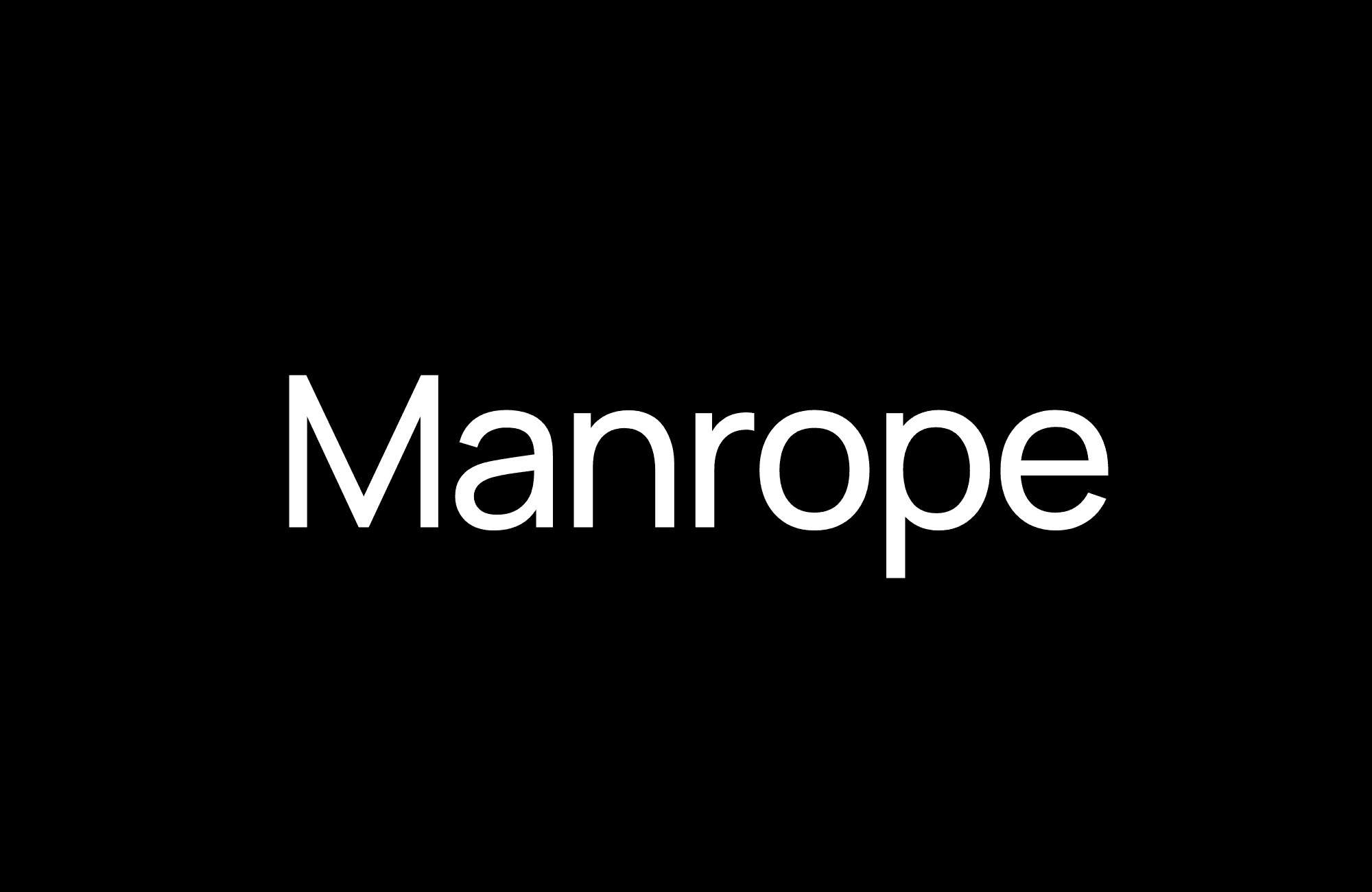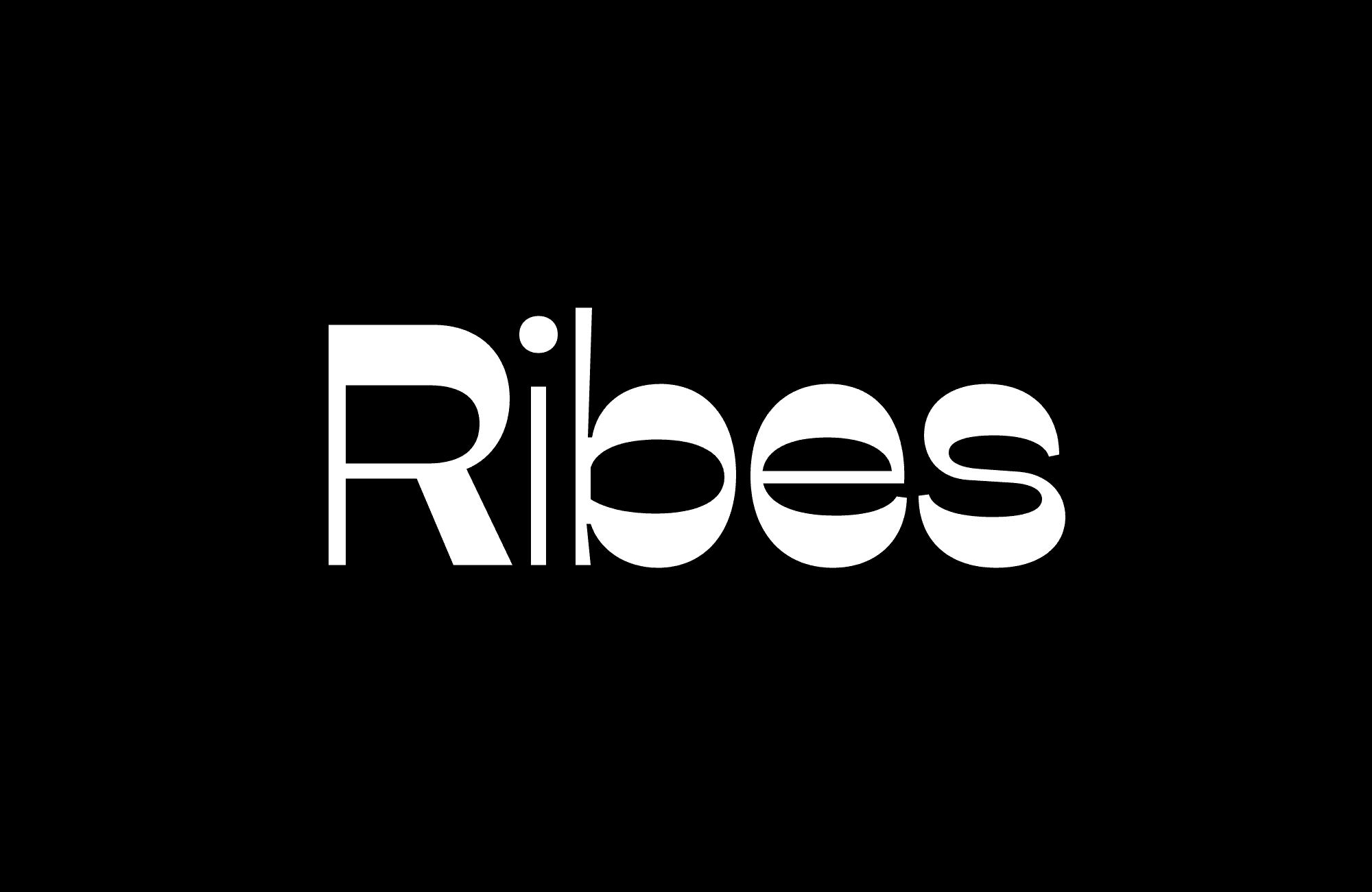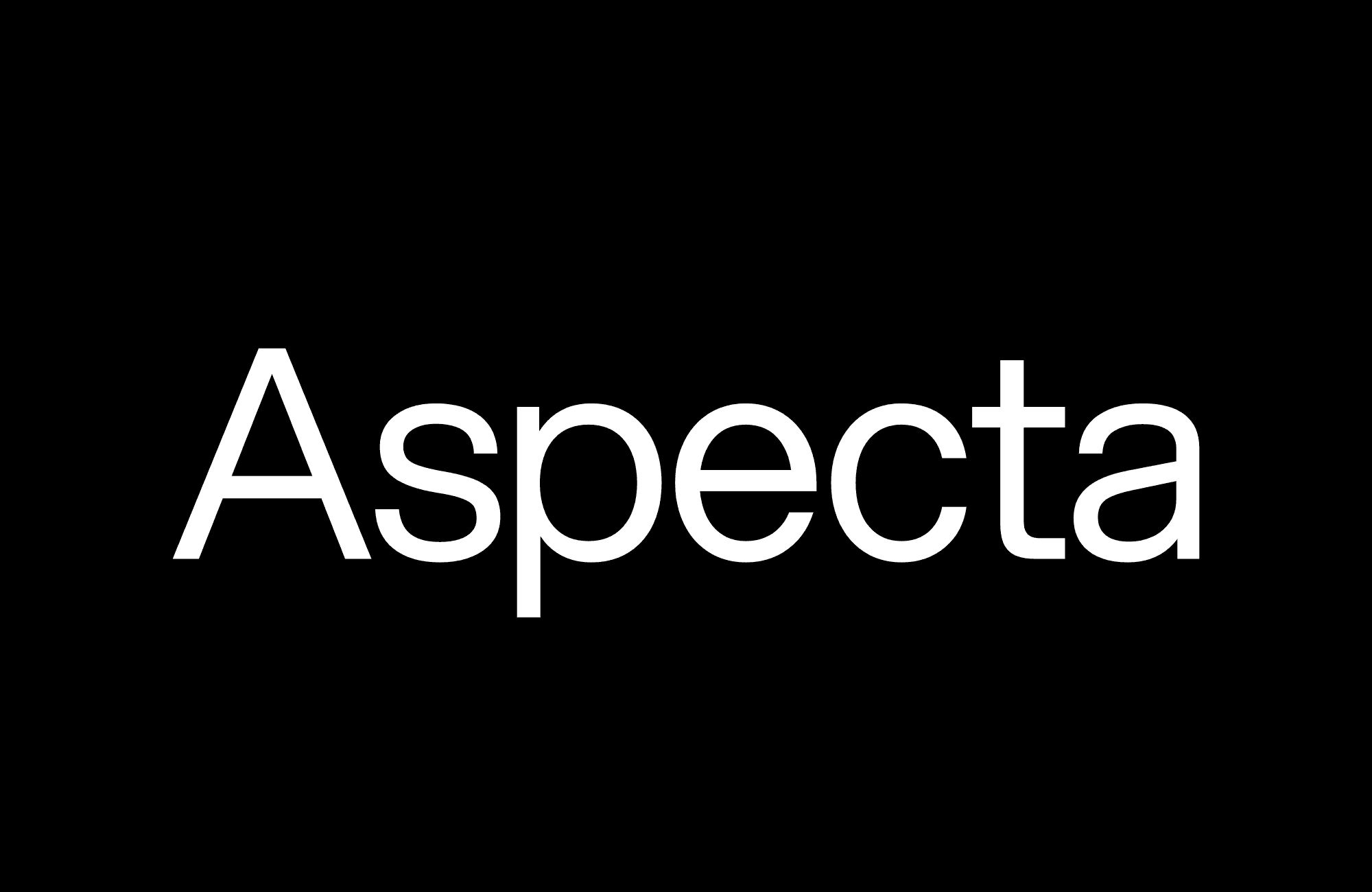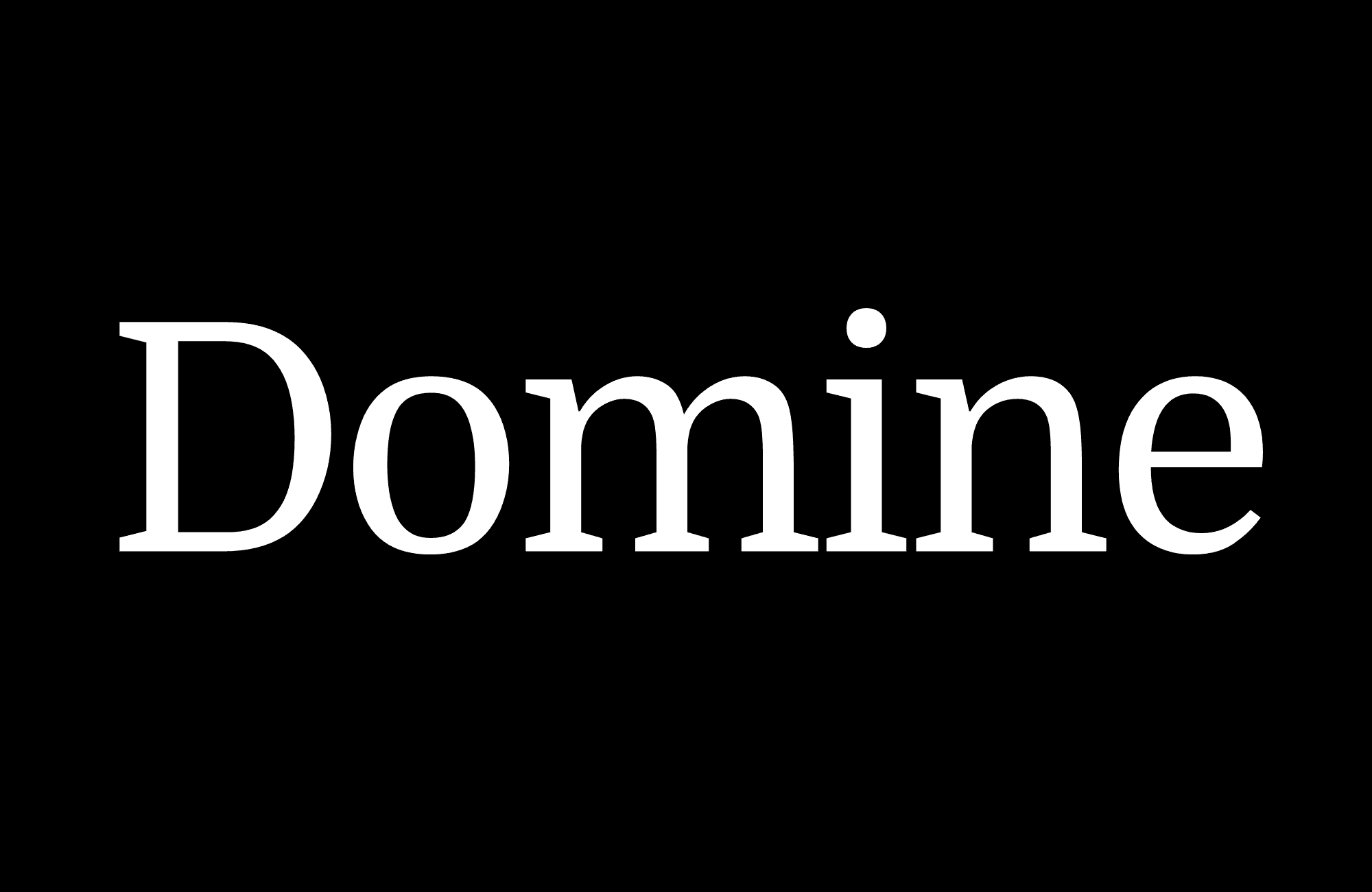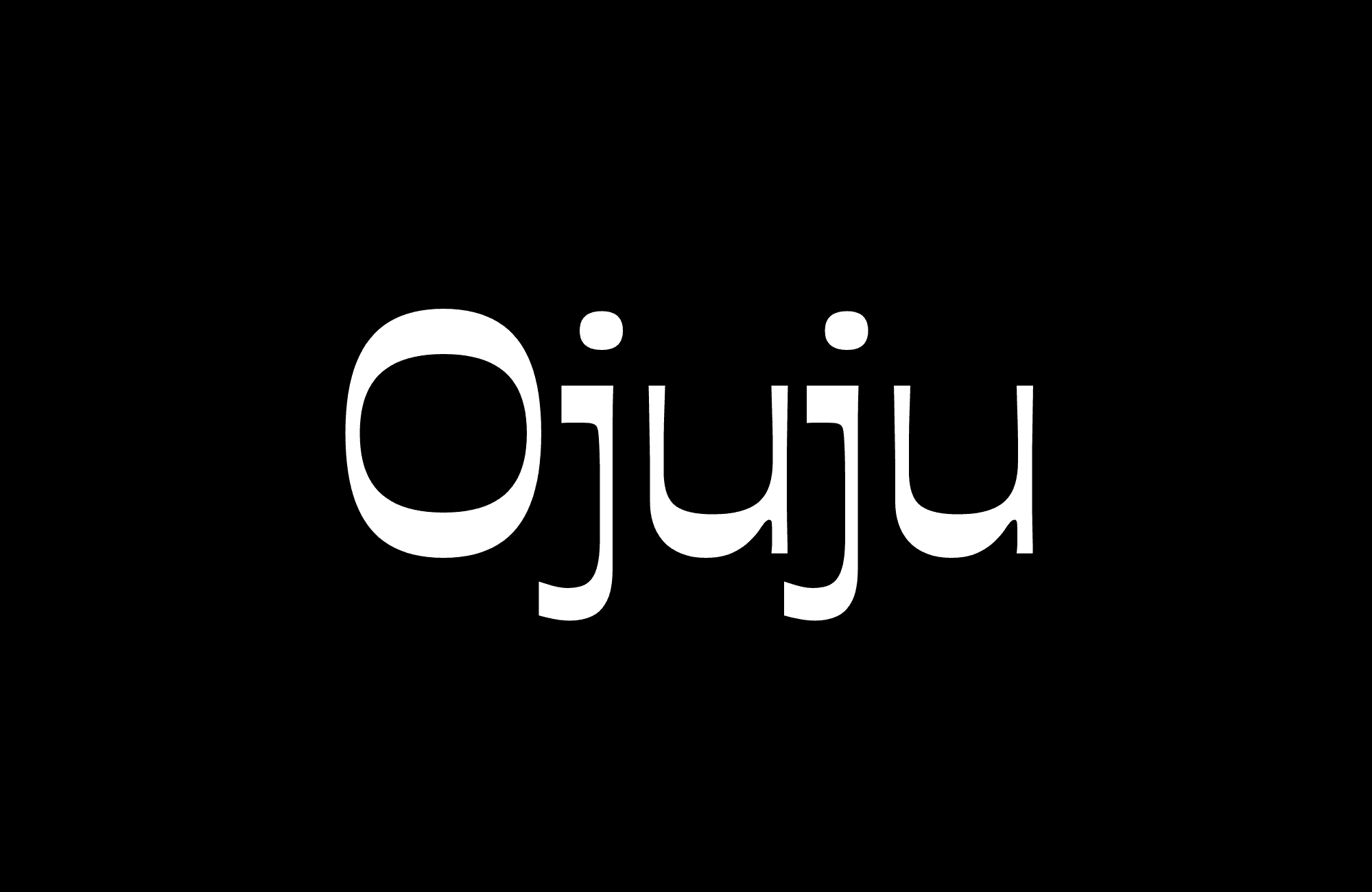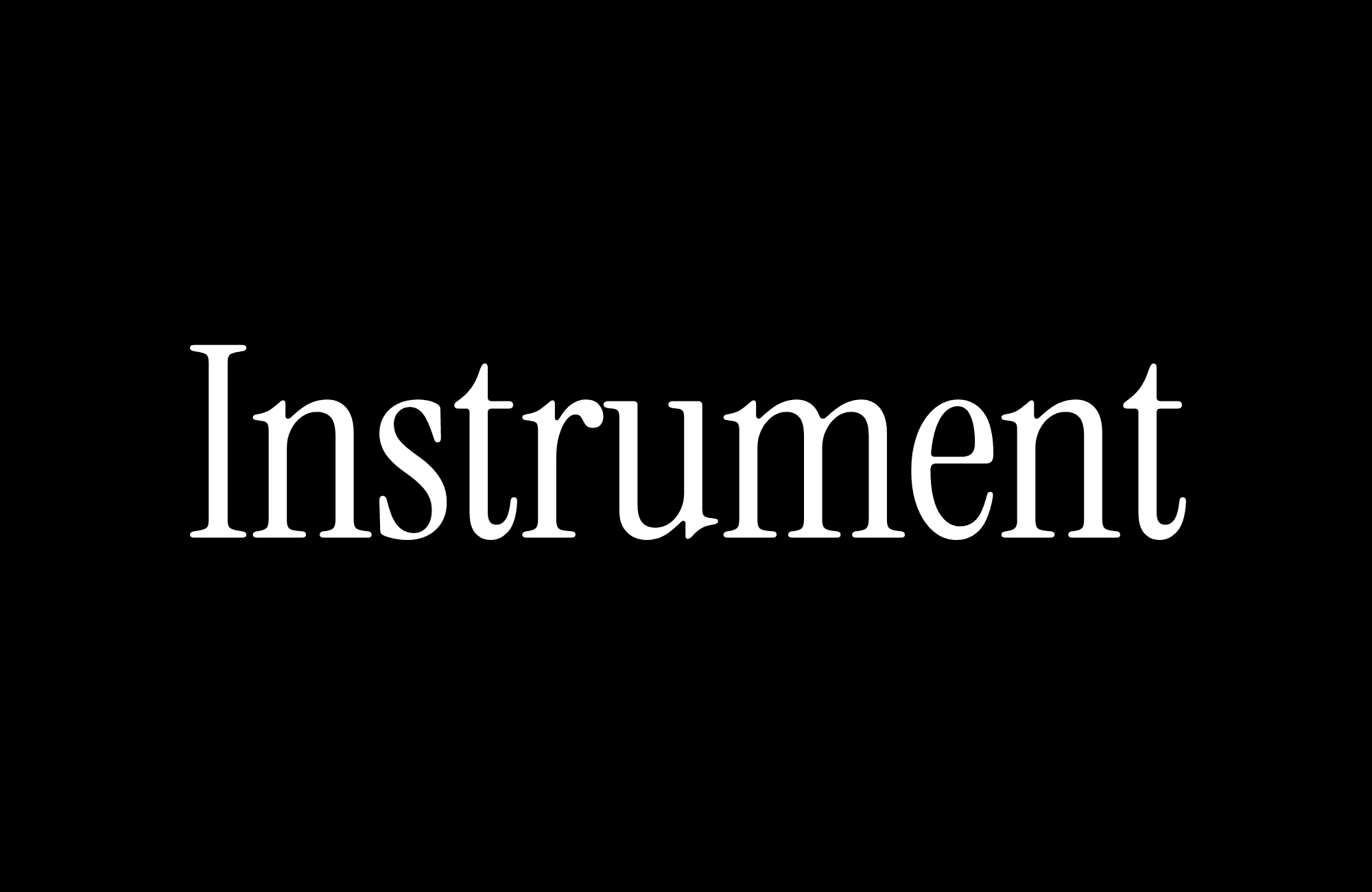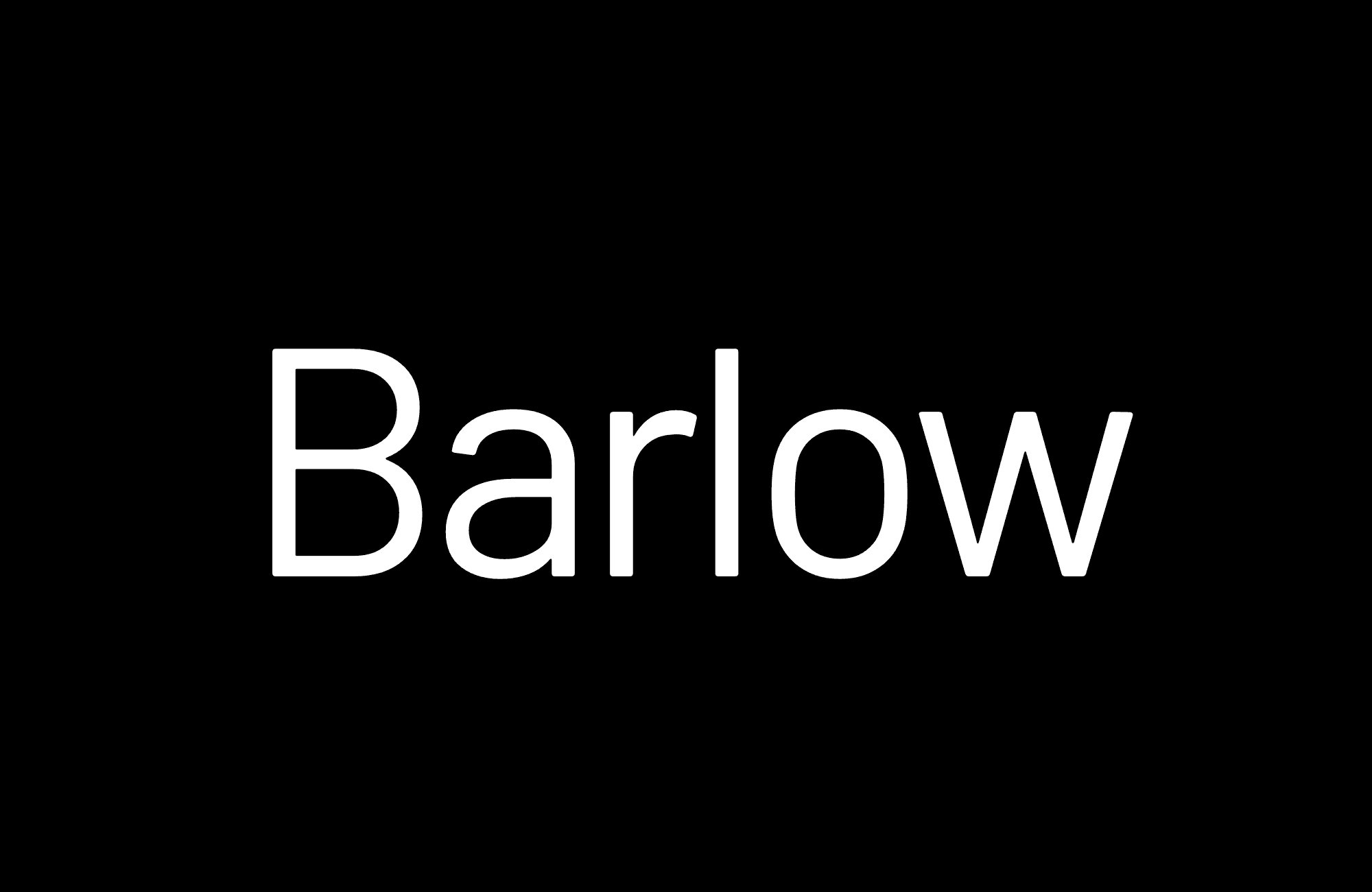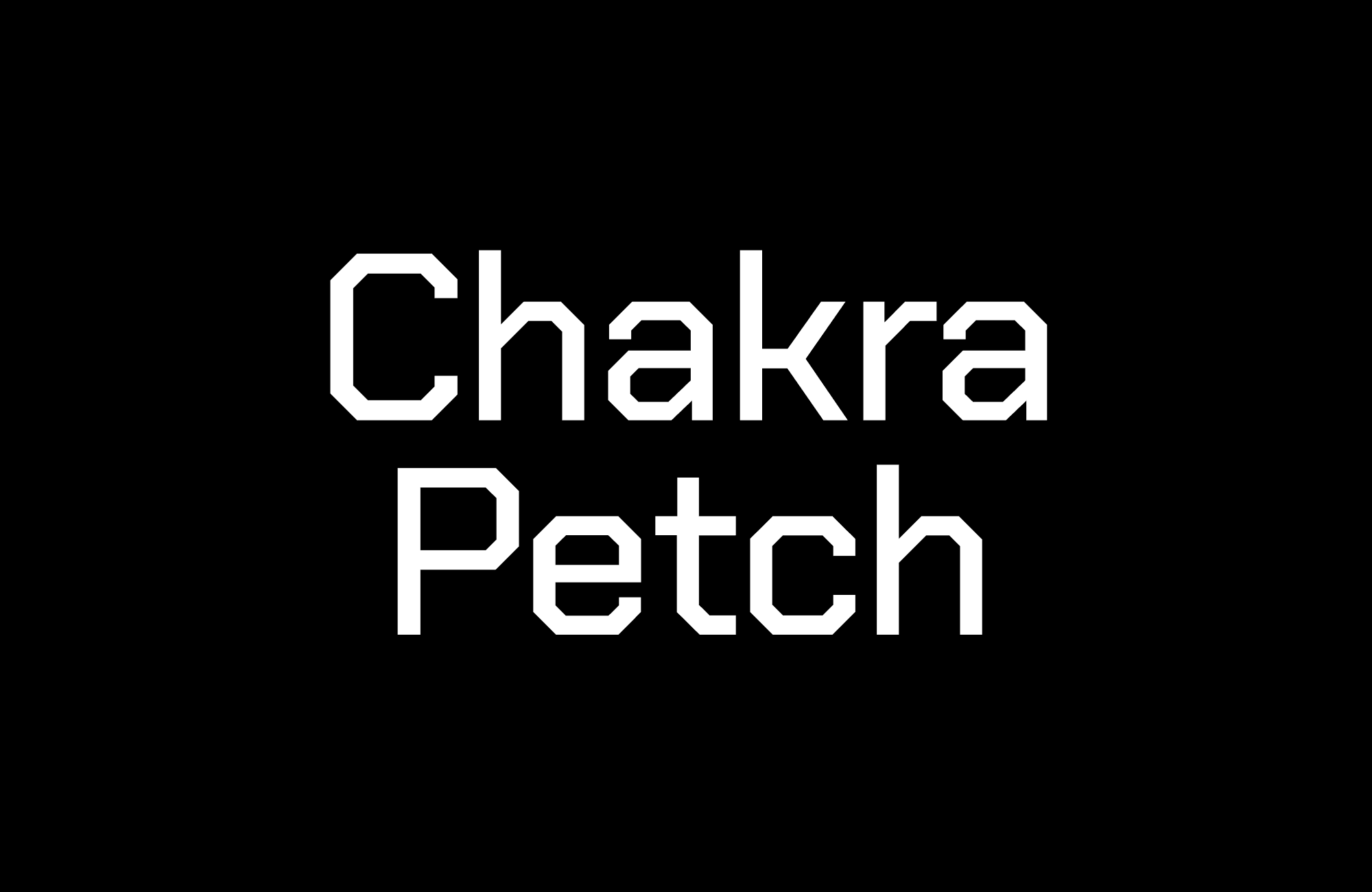
The best fonts for websites are legible at body sizes, load fast, and cover the weights and glyphs your design needs. Sans serifs like Inter, Satoshi, and Manrope suit interfaces and marketing sites, while serifs like Domine and EB Garamond fit long-form reading. Below are 25 options, plus guidance on choosing and pairing them.
Just as a voice actor’s intonation can influence whether or not a listener enjoys a podcast or audiobook, typefaces affect how people feel about what they read. According to a 2021 study, typography choices can increase readers’ positive feelings by up to 13%.
As typefaces have evolved to suit the web, designers have many usability factors to consider beyond the way fonts can make people feel. When choosing web fonts, qualities like weight variability, how many languages a font comes in, and load time and availability across devices all matter.
To choose the best fonts for your website designs, find Framer’s best practices, as well as a roundup of the best web fonts, below.
How to choose a font for your website
Fonts like Open Sans and Lato are everywhere for a reason: They’re easy to read, comprehensive, and versatile. But you don’t have to stick to the most ubiquitous fonts to find the best fit for your current project. Here’s what to look for when choosing web fonts:
Solve for legibility first
It takes about 50 milliseconds for users to decide whether to stay on your site. If your site’s typography is difficult to read, visitors may not stick around.
Legibility is all about balance: A legible font will have lower-case letters that are tall enough to make out easily, but not so tall as to be confused with upper-case letters. Its strokes will vary in width but not so much that the eye can notice it.
Last, some fine details such as serifs can help the eye draw connections from one letter to the next, but too much connection and decoration can distract. Factors like space between letters can also play a role—once again, you’re looking to strike a balance.
Look for range
Downloading a luscious typeface only to discover it lacks the breadth of weights, glyphs, and languages needed for your project is a fast-track to frustration (and wasted time). When you’re browsing fonts, make sure the font family includes multiple weights. Ideally it is also variable, meaning the weight can change dynamically from its thinnest to thickest weight within the same font file. The more thorough your selection, the more flexible your site design will be over time.
File format also affects speed. WOFF2 files are the smallest, and every family and weight you add is an extra download, so load only what the design uses. Page speed affects both rankings and conversions, so treat fonts as part of your performance budget.
25 best fonts for websites
Inter
Satoshi
Manrope
Ribes
Aspekta
Domine
Ojuju
Instrument Serif
Barlow
Chakra Petch
Unbounded
Tanker
Public Sans
Ortica
Space Grotesk
Cabinet Grotesk
Pencerio
Stardom
Zodiak
Melodrama
Archivo
EB Garamond
Caprasimo
Gambarino
Epilogue
1. Inter
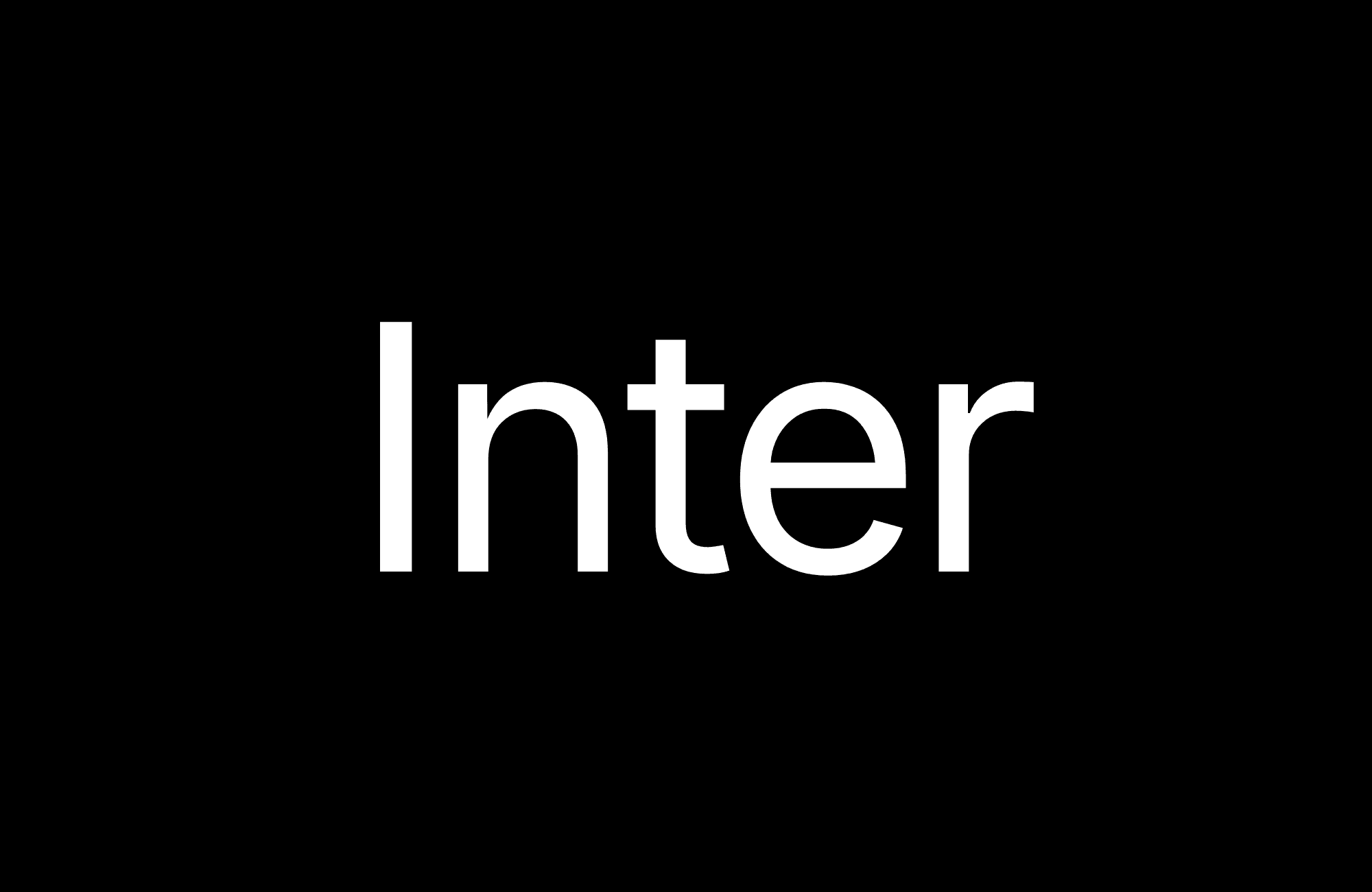
Font type: Variable; sans serif
Inter is a functional, clean sans serif typeface designed for easy readability. It was created in San Francisco by Rasmus Andersson, a Swedish engineer, in 2017. It’s been updated to be used by anyone, anywhere: it has over 2000 glyphs, 147 languages, and variable weights, making it a good choice for pretty much anything.
Best for:
Modern designs
Body and/or display text
Design-forward brands, ecommerce, portfolios
2. Satoshi
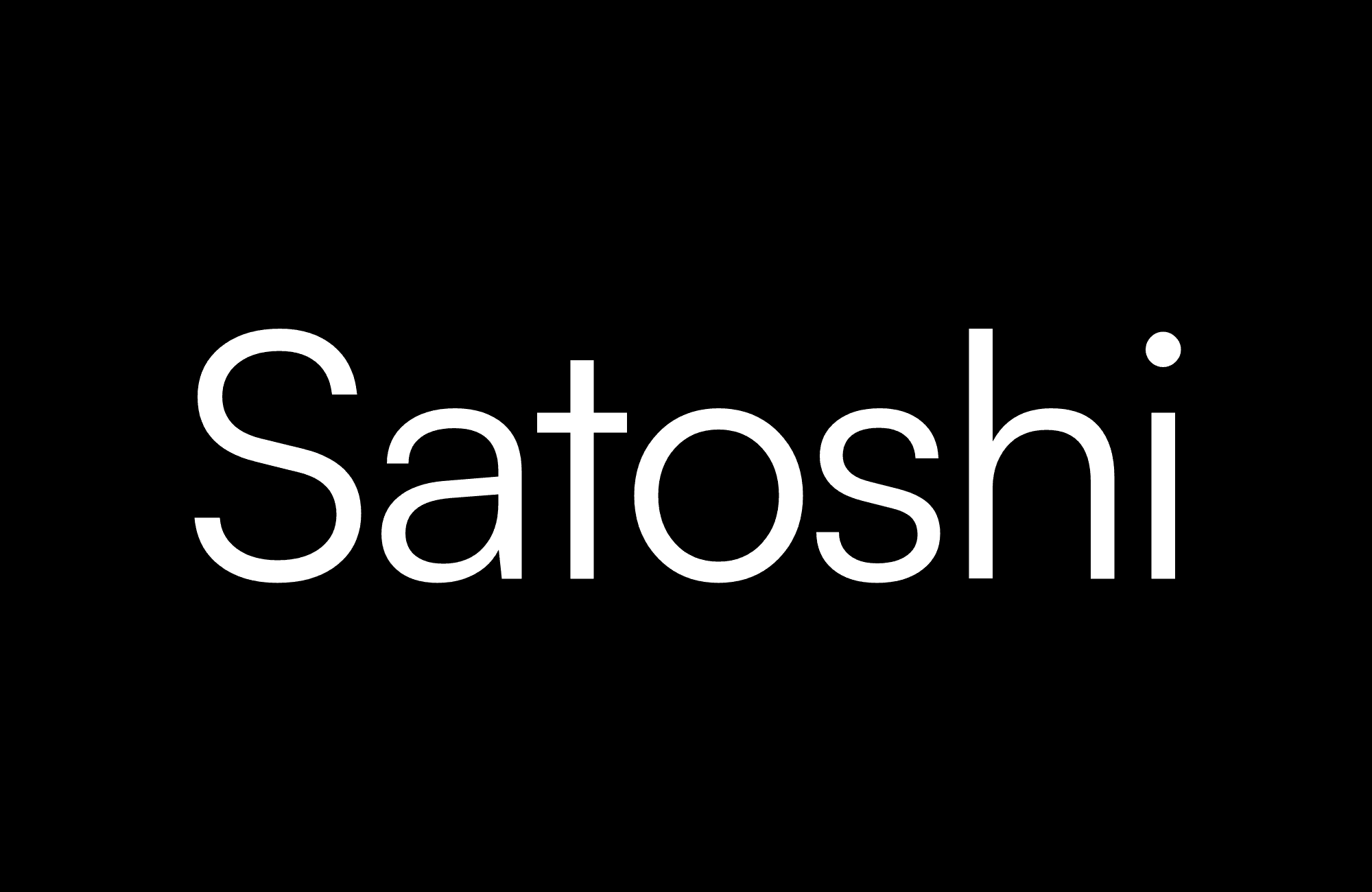
Font type: Variable; sans serif
Designed by Deni Anggara for the Indian Type Foundry, Satoshi is a geometric sans serif with an industrial feel. The tension between geometric playfulness and sans serif utilitarianism makes it an inviting font style. Satoshi could bring an approachable, design-centric brand to life in a variety of industries, whether it’s a design firm or a consumer packaged goods brand. While it has a relatively small glyph library, it’s variable and supports 10 weights and 135 languages.
Set a web-safe fallback such as Arial or Georgia in your font stack
Check that headings and layout still hold up when the fallback renders